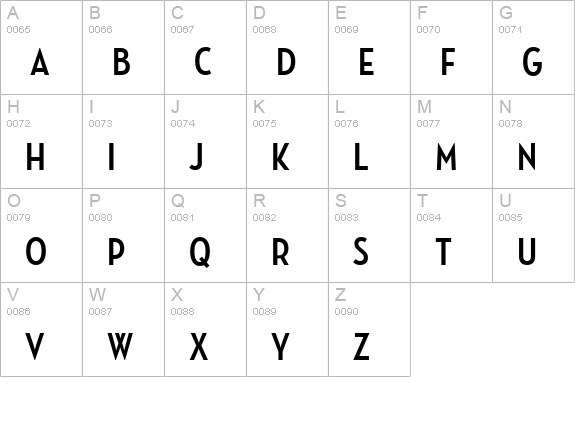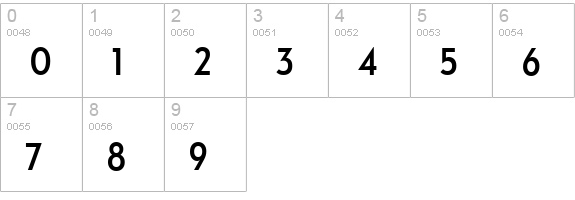
NeutrafaceCondensedPS-BoldAlt is a bold and impactful font that exudes modern sophistication. With its sleek lines and condensed design, this typeface adds a touch of elegance to any project. Perfect for headlines, titles, and branding materials, NeutrafaceCondensedPS-BoldAlt commands attention and makes a statement. What makes NeutrafaceCondensedPS-BoldAlt even more appealing is that it is available for free download at FontsMarket.com. This means you can easily access this high-quality font without any cost, making it a valuable addition to your design toolkit. Don't miss out on the opportunity to enhance your projects with the striking presence of NeutrafaceCondensedPS-BoldAlt - download it today and take your designs to the next level.